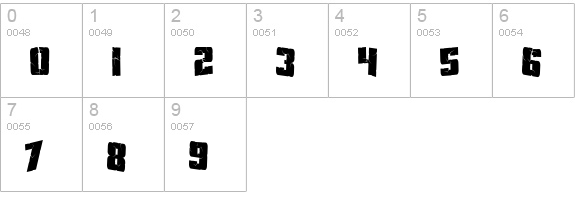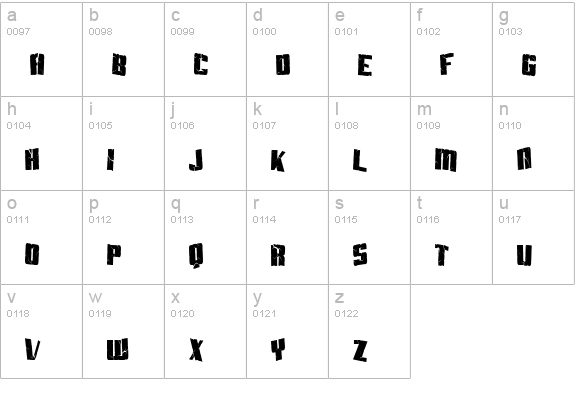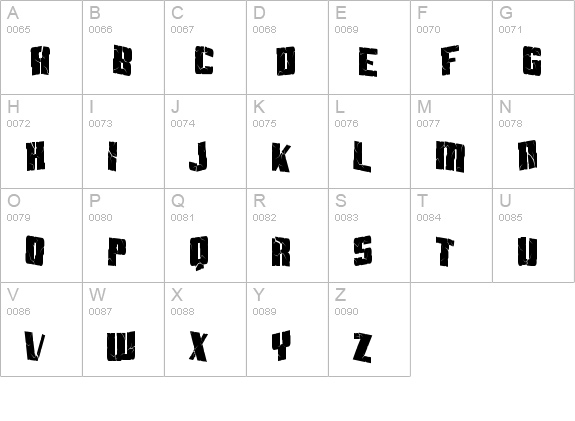
Aftershock Debris Condensed is a distinctive, condensed-width variant in the Aftershock typeface family \xE2\x80\x94 well suited to design and typography projects.
Aftershock Debris Condensed font is a bold and striking typeface that exudes power and impact. With its edgy design and rugged aesthetic, this font is perfect for adding a touch of intensity to your projects. The condensed style of the font adds a sense of urgency and dynamism, making it ideal for headlines, posters, and branding materials. What sets Aftershock Debris Condensed font apart is its unique blend of rough edges and modern typography, creating a one-of-a-kind look that commands attention. Whether you're looking to make a bold statement or add a touch of grit to your designs, this font is sure to deliver. Best of all, Aftershock Debris Condensed font is available for free download at FontsMarket.com. So go ahead and unleash the power of this font in your next project and make a lasting impression with its bold and distinctive style.